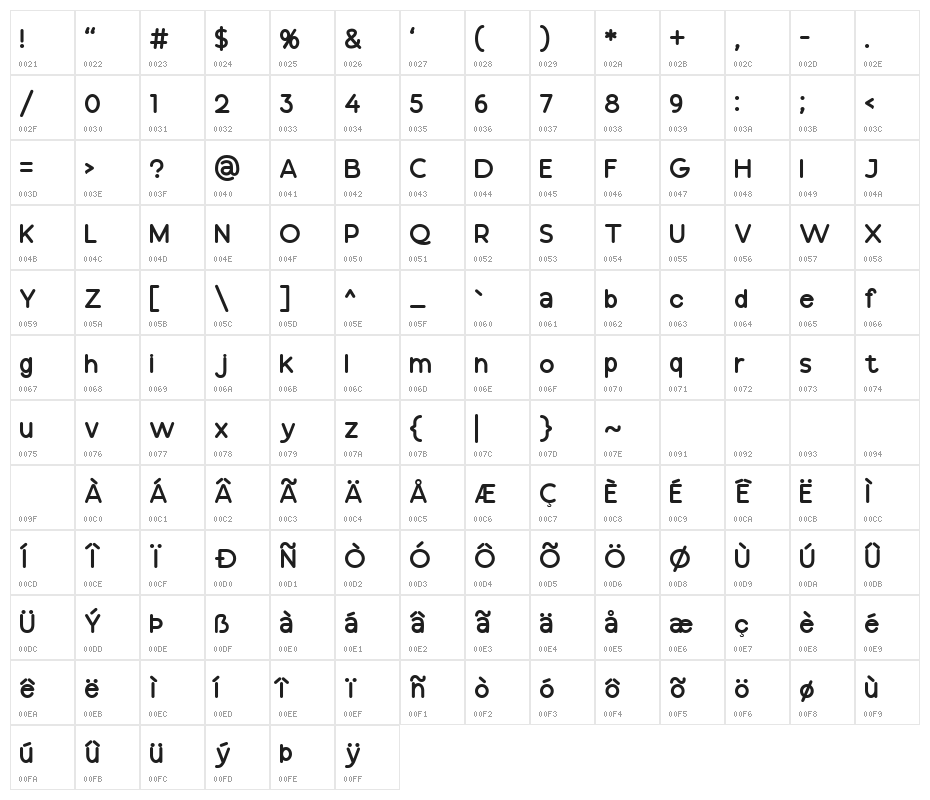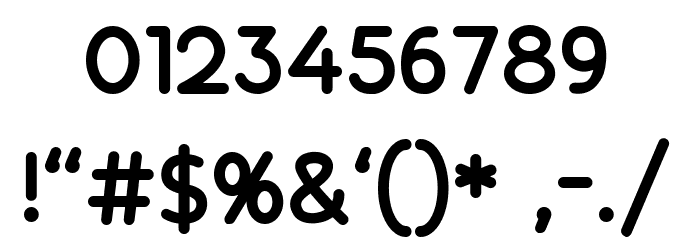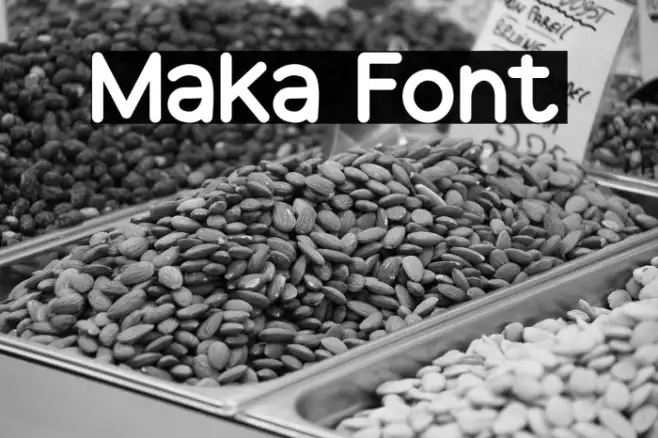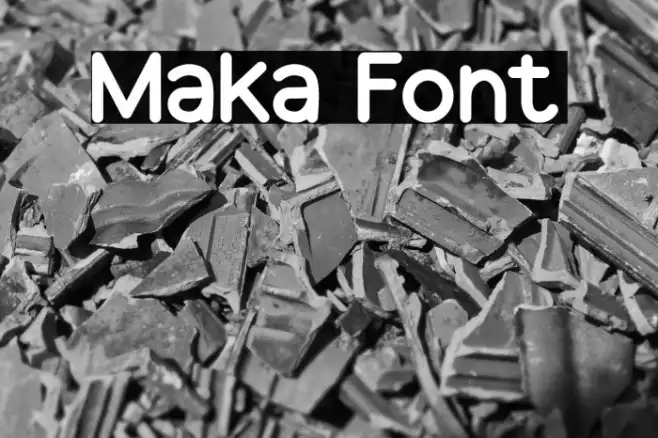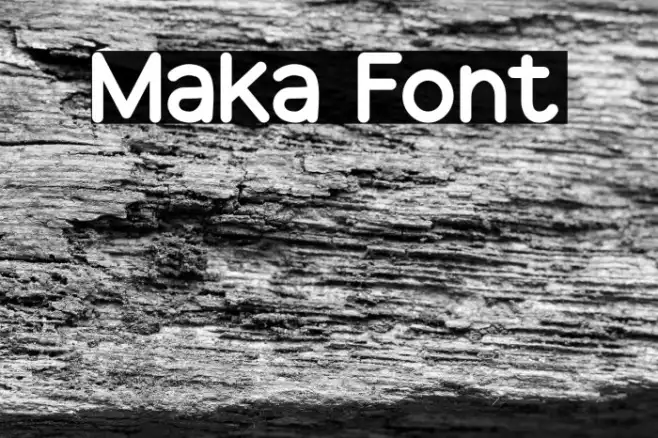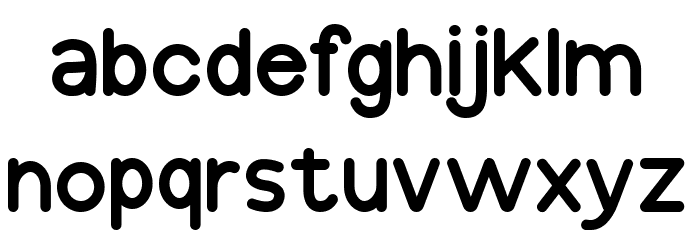
Maka Font
Maka Description
This font features a playful and rounded style, characterized by its smooth curves and friendly appearance. The letters are evenly spaced, providing a balanced and approachable look. The rounded terminals and consistent stroke width give it a modern yet casual feel, making it suitable for a variety of applications. The numerals and special characters maintain the same rounded aesthetic, ensuring a cohesive design across all elements. This font is versatile, offering a clean and legible appearance that works well in both digital and print formats.
| Use Case | Headlines, Logos, Social Media |
| Proposed Projects | Ideal for children's books, playful branding, casual invitations, and social media graphics. |